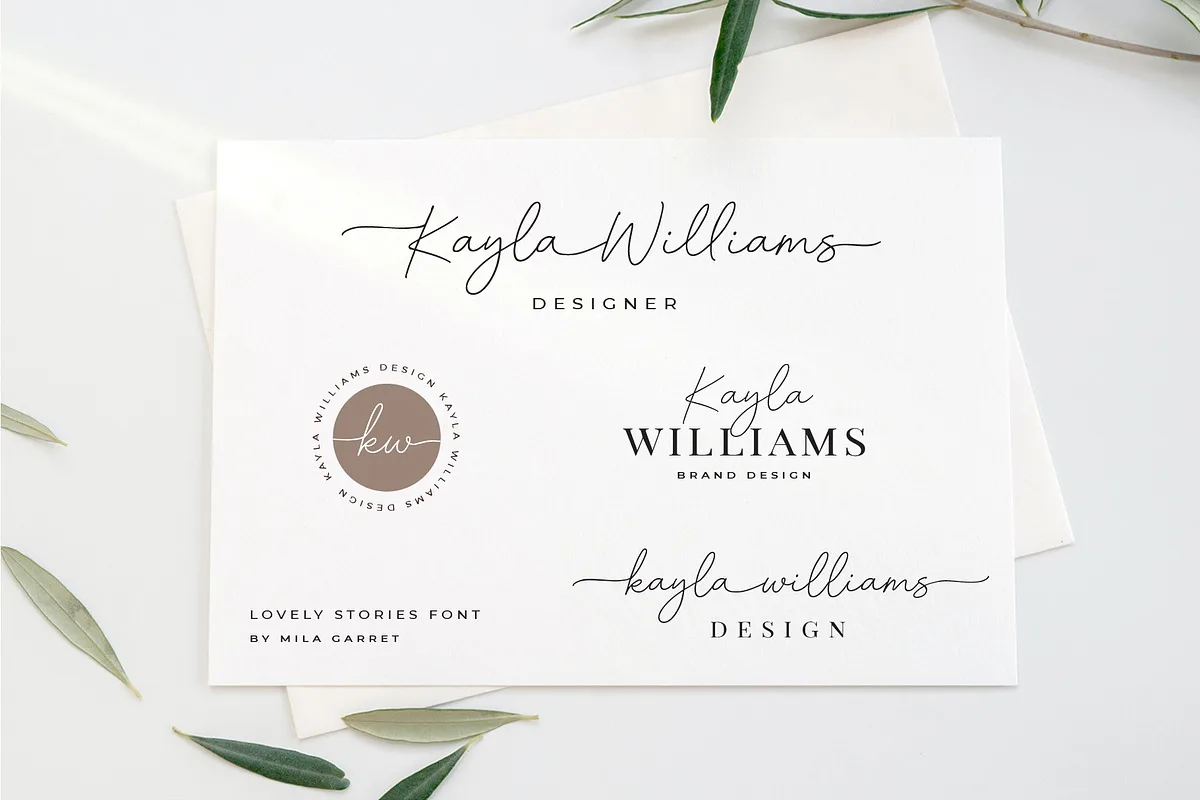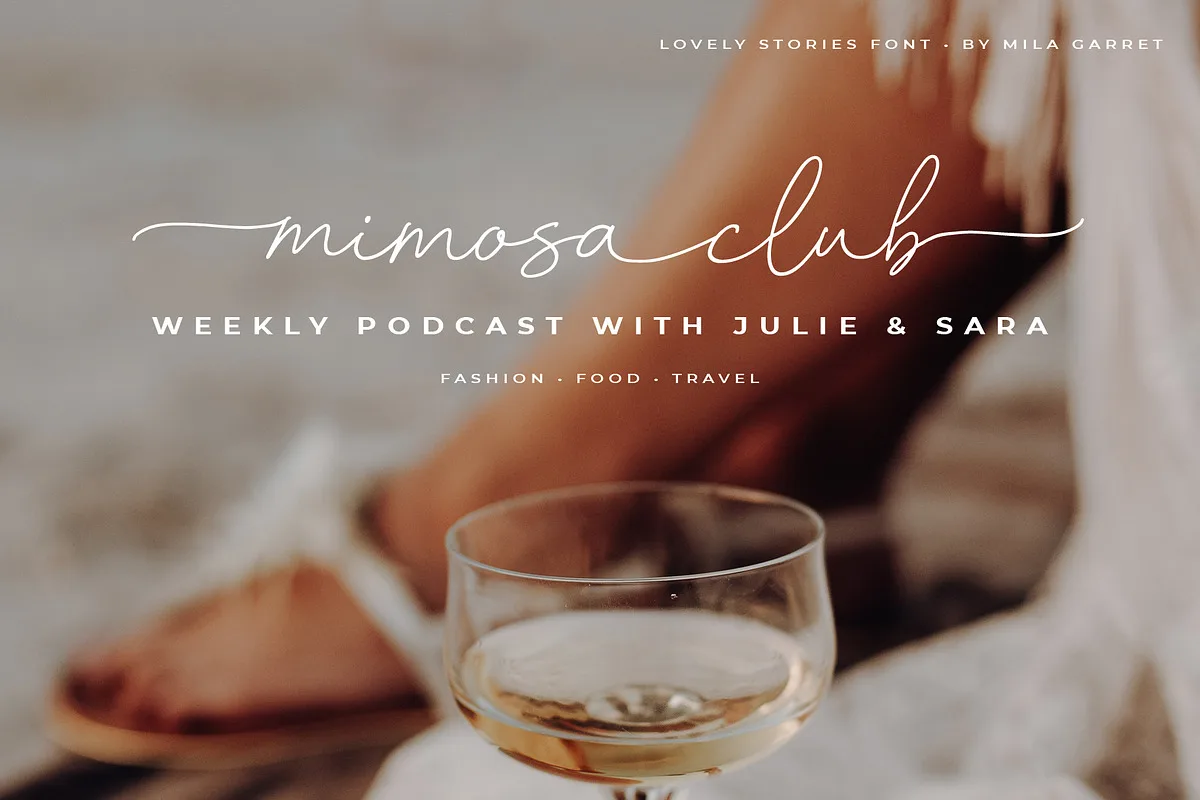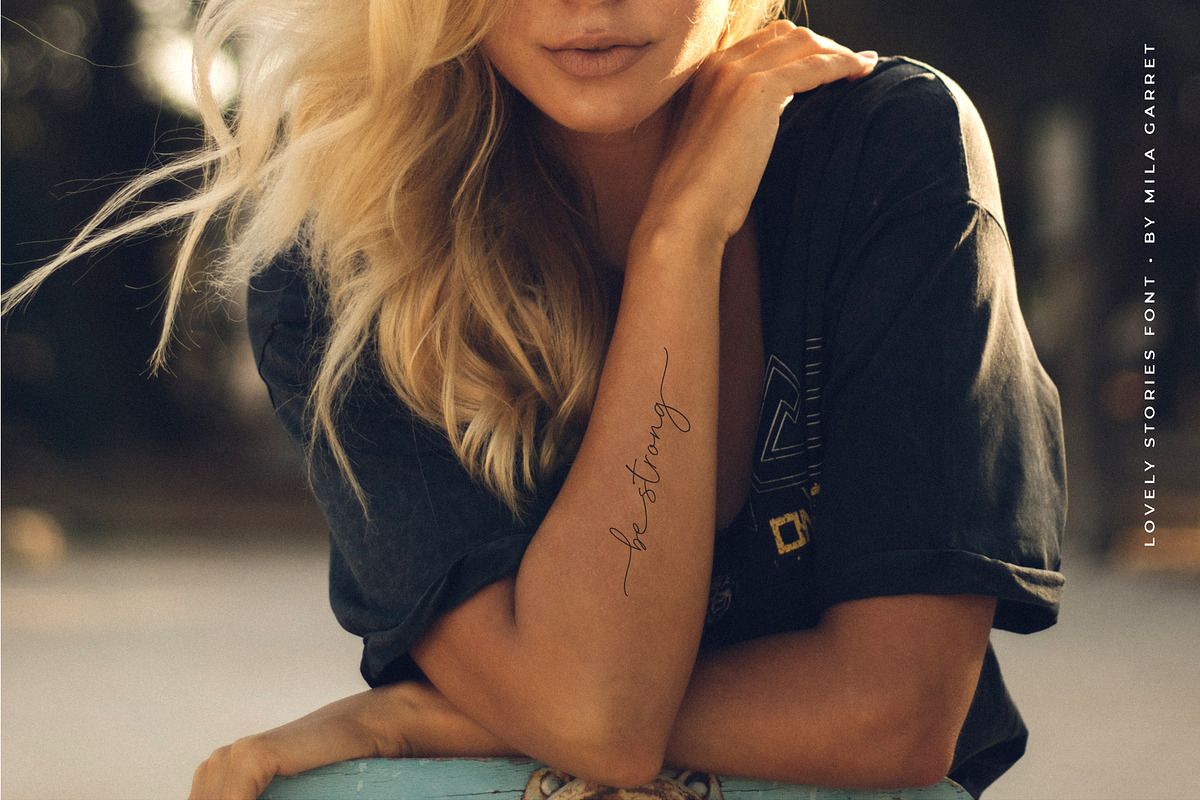
Lovely Stories is a connected, handwritten script font perfect for weddings, organic handwritten logos, modern branding, stylish websites, social media graphics, and more!
Included are a full set of beginning and ending lowercase swashes, uppercase beginning swashes, and a special set of connector swashes to link words together, for a unique and custom look.
- Full Set of standard alphabet and punctuation
- Extra set of beginning swashed lowercase
- Extra set of ending swashed lowercase
- Extra set of lowercase connectors
- Extra stylistic alternates and ligatures
- Multilingual Characters
Lovely Stories Stylish Pretty Script Font